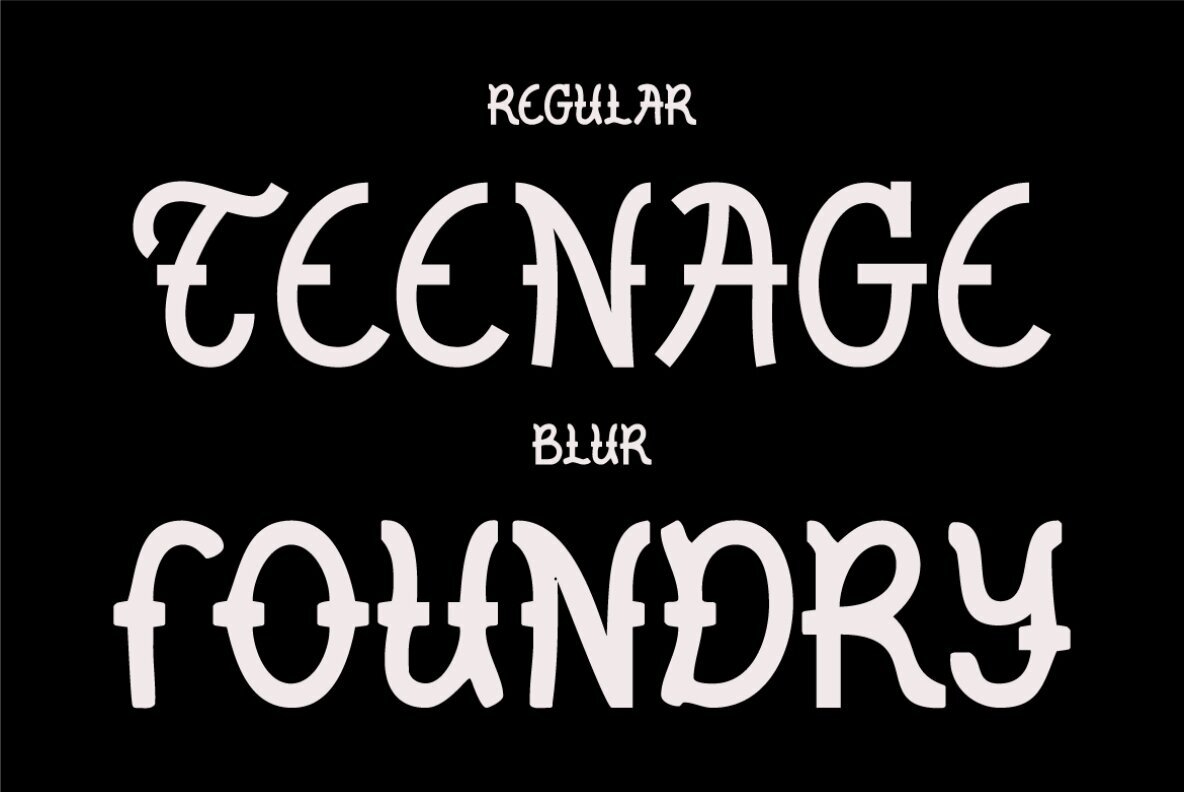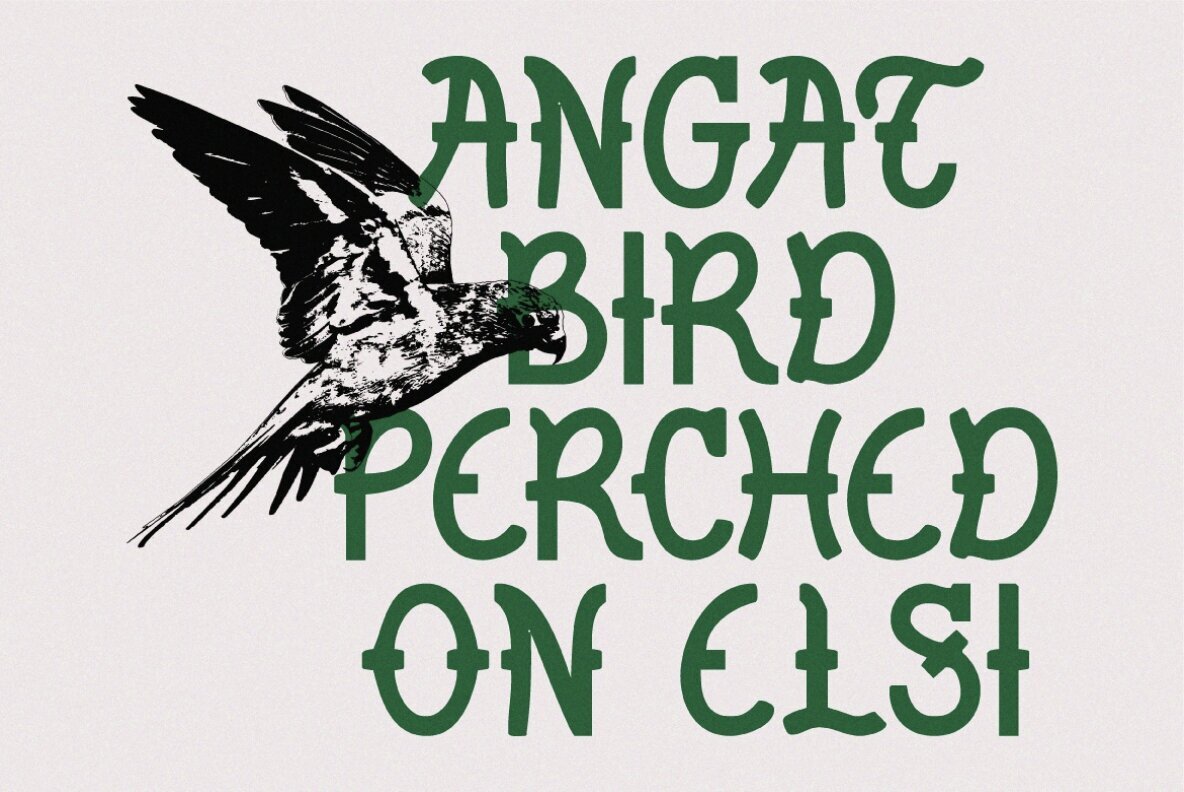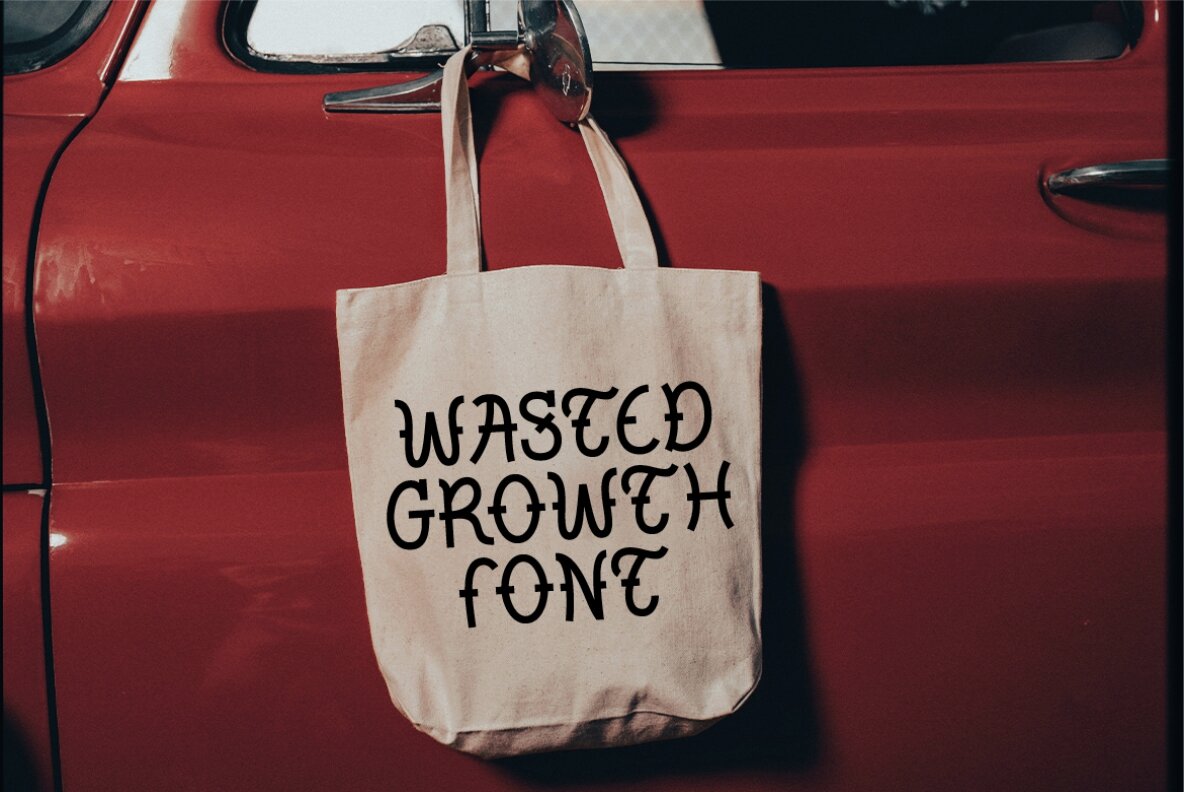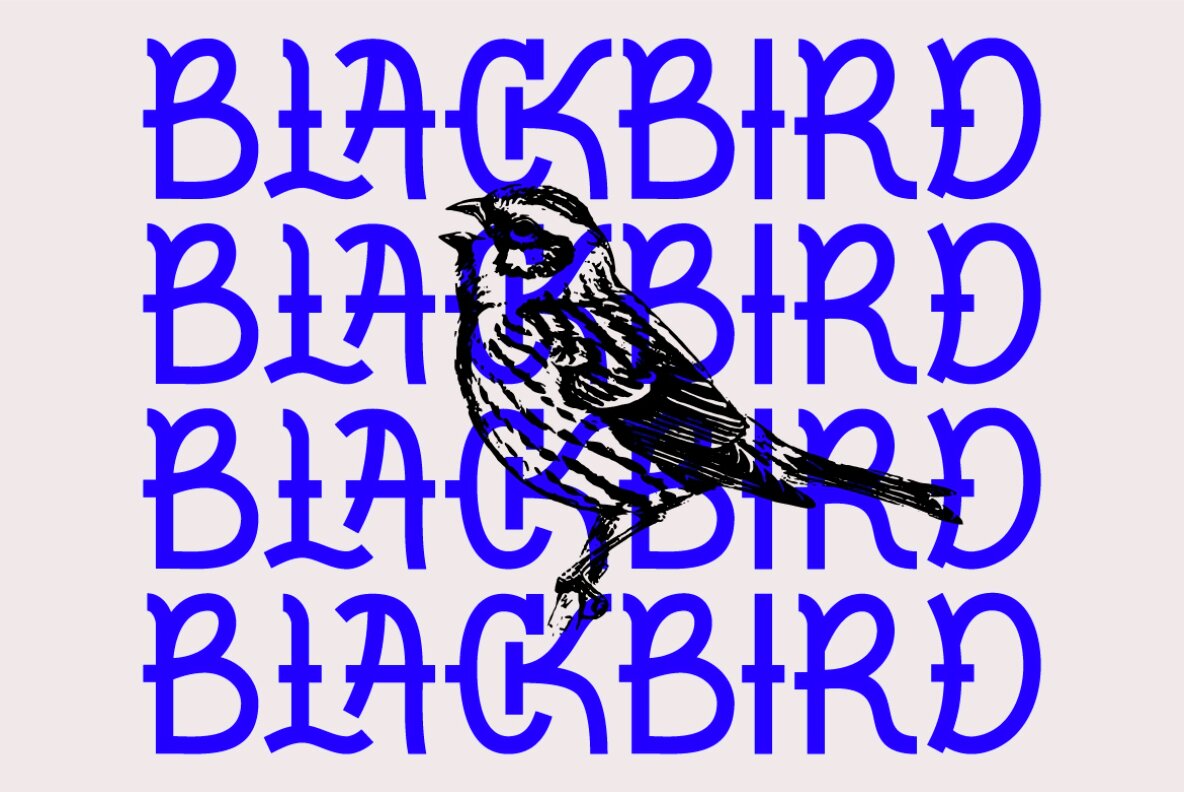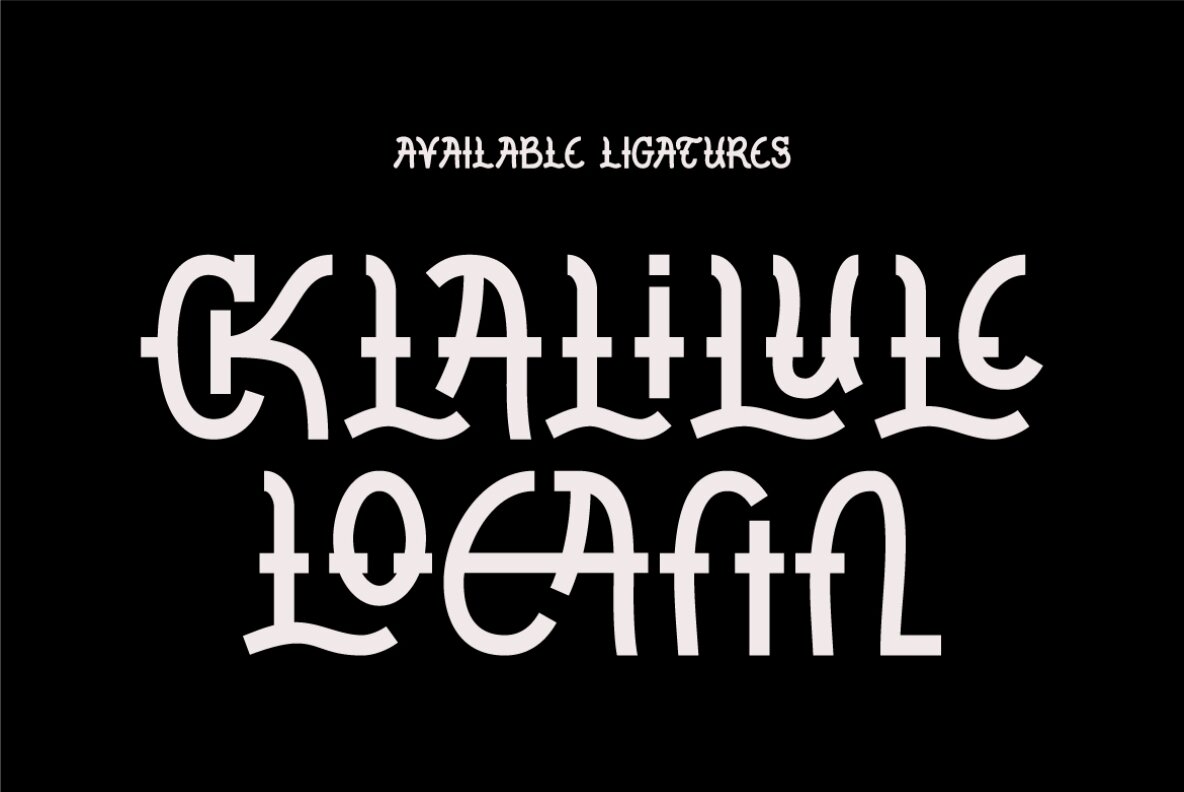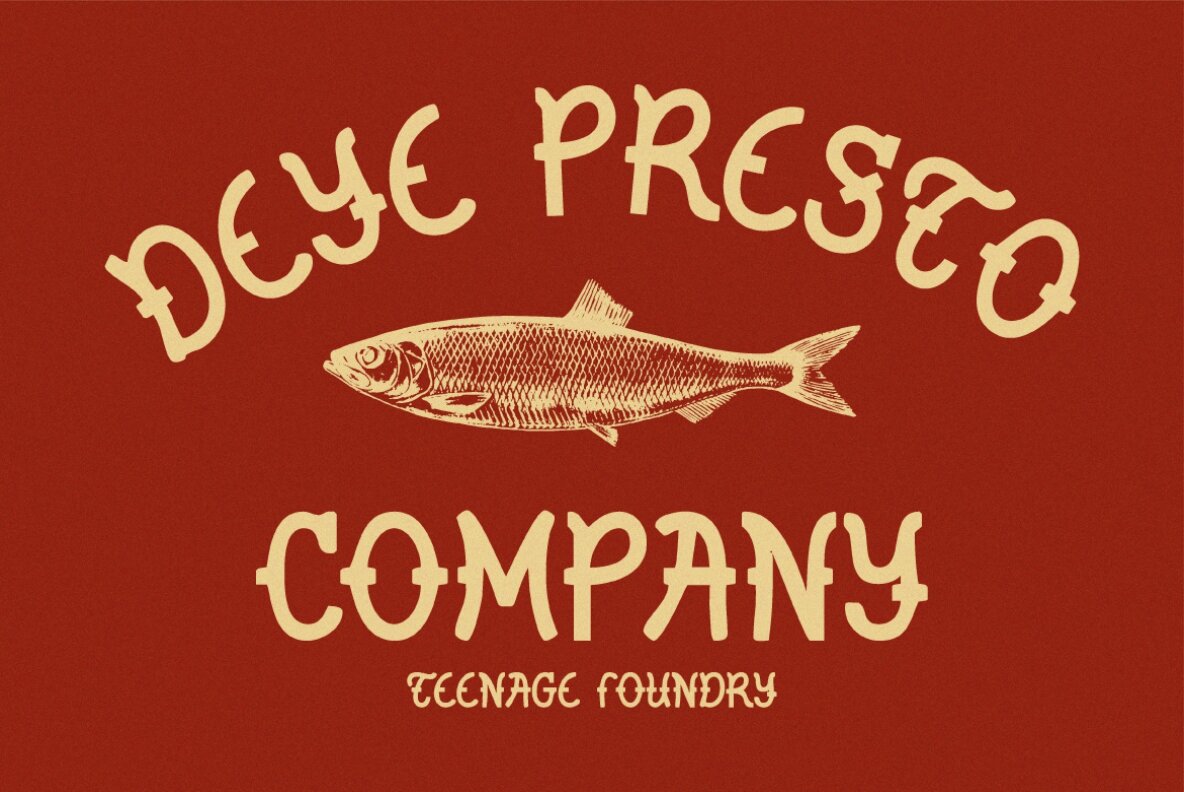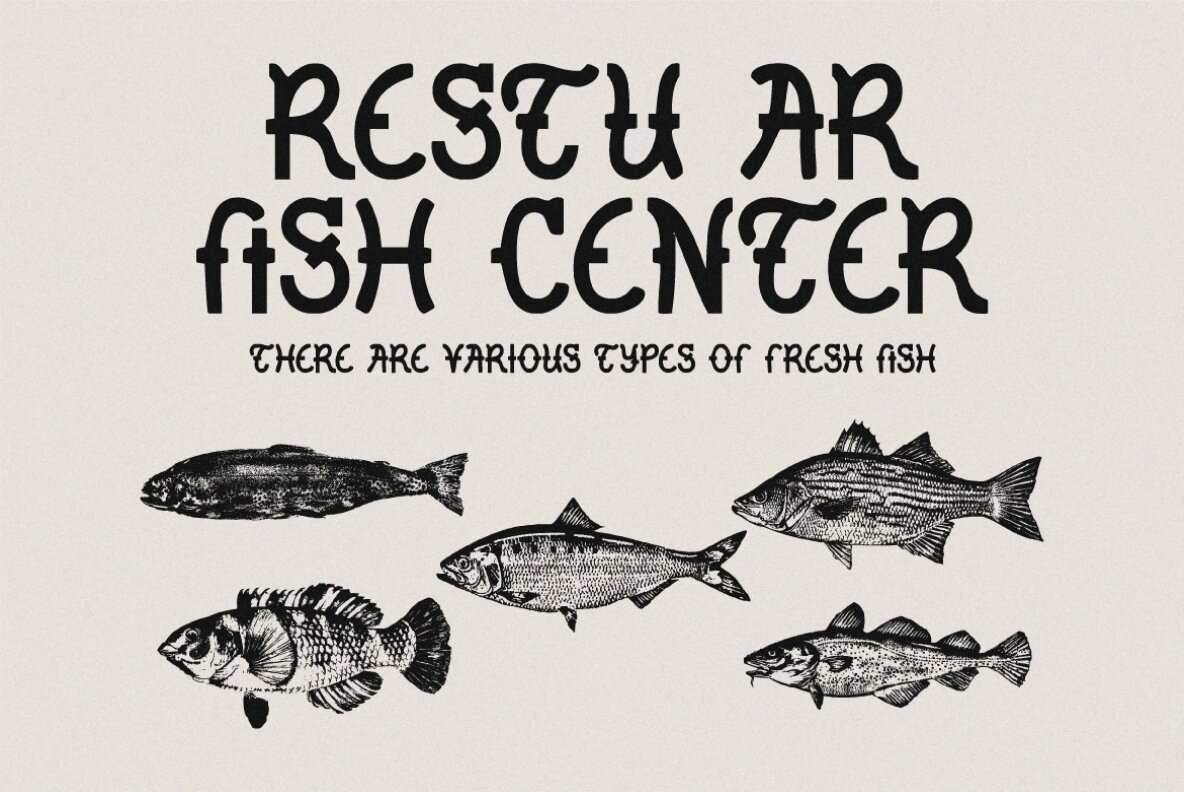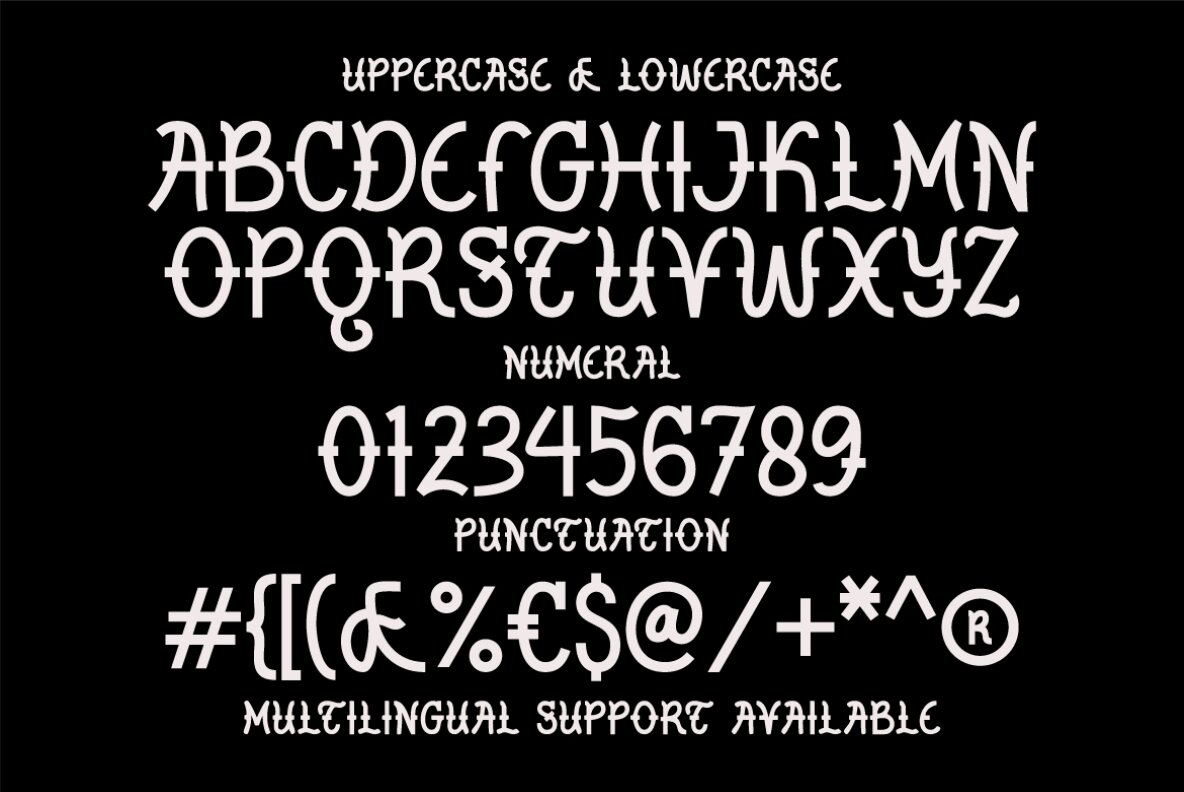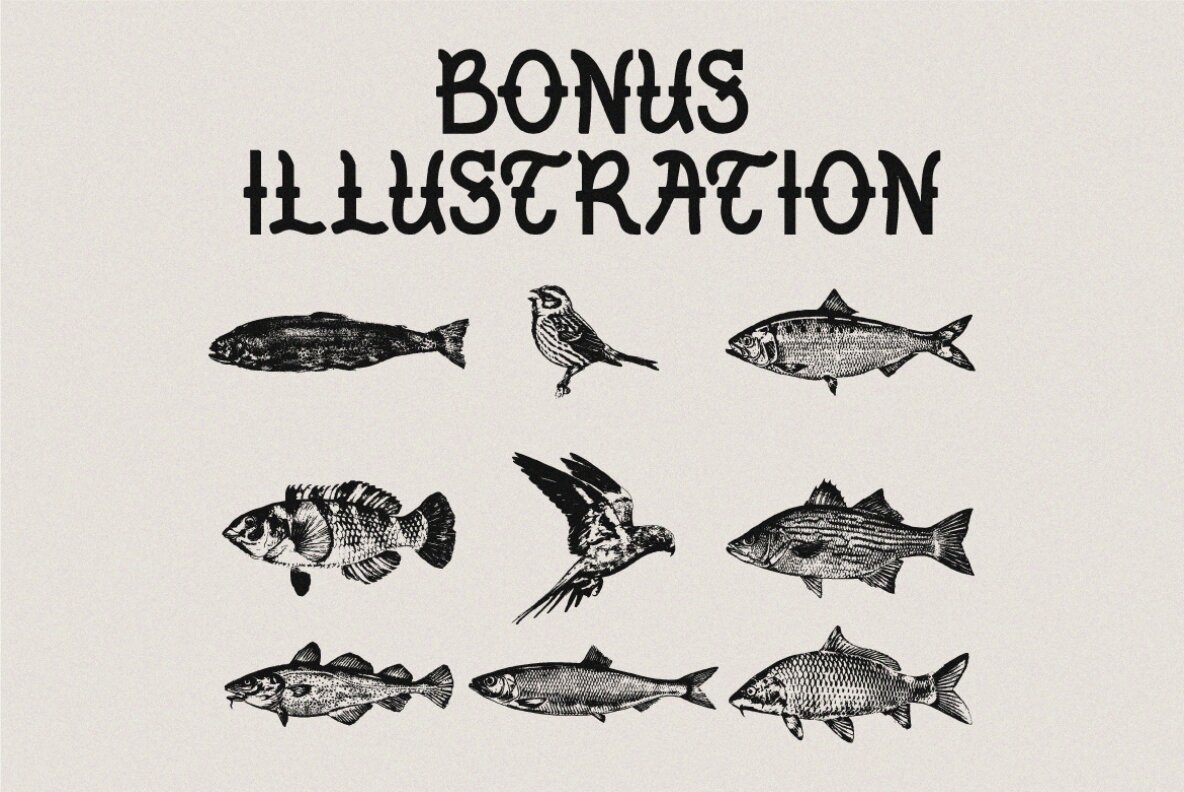
TF Wasted Growth Font
Wasted Growth by Teenage Foundry is a striking display font characterized by its bold style. It comes in two unique styles, Regular and Blur, making it an excellent choice for merchandise designs, covers, posters, and more. This font package includes 9 bonus illustrations, designed to ignite your creativity and add extra flair to your projects. For any questions, please contact me. Thanks!TF Wasted Growth: Bold Display Font with Distinct Styles
Teenage Foundry brings playful irreverence and bold character to contemporary type design. Known for high-impact display fonts, their work often leans into retro, pop, and offbeat aesthetics—ideal for projects that demand standout personality. From groovy curves to heavy geometric forms, their catalog spans a...